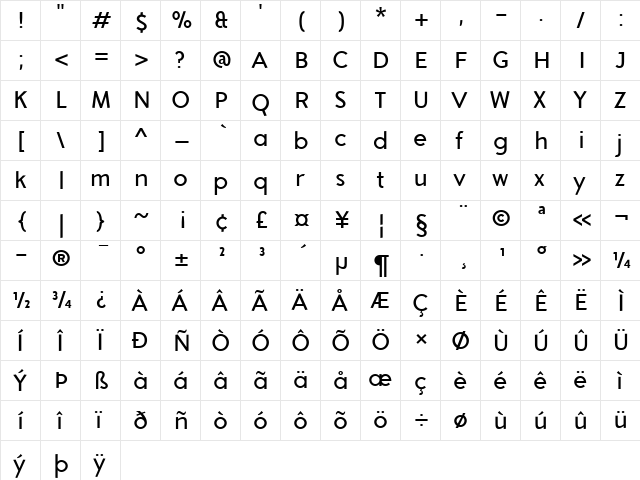
Aron Grotesque Regular
| Foundry | Monocromo s.n.c. |
| Designer | Valentino Coppi for Monocromo |
Design Context for Aron Grotesque Typeface
Aron Grotesque is a composed and adaptable typeface that performs quietly and consistently across a wide range of design contexts.